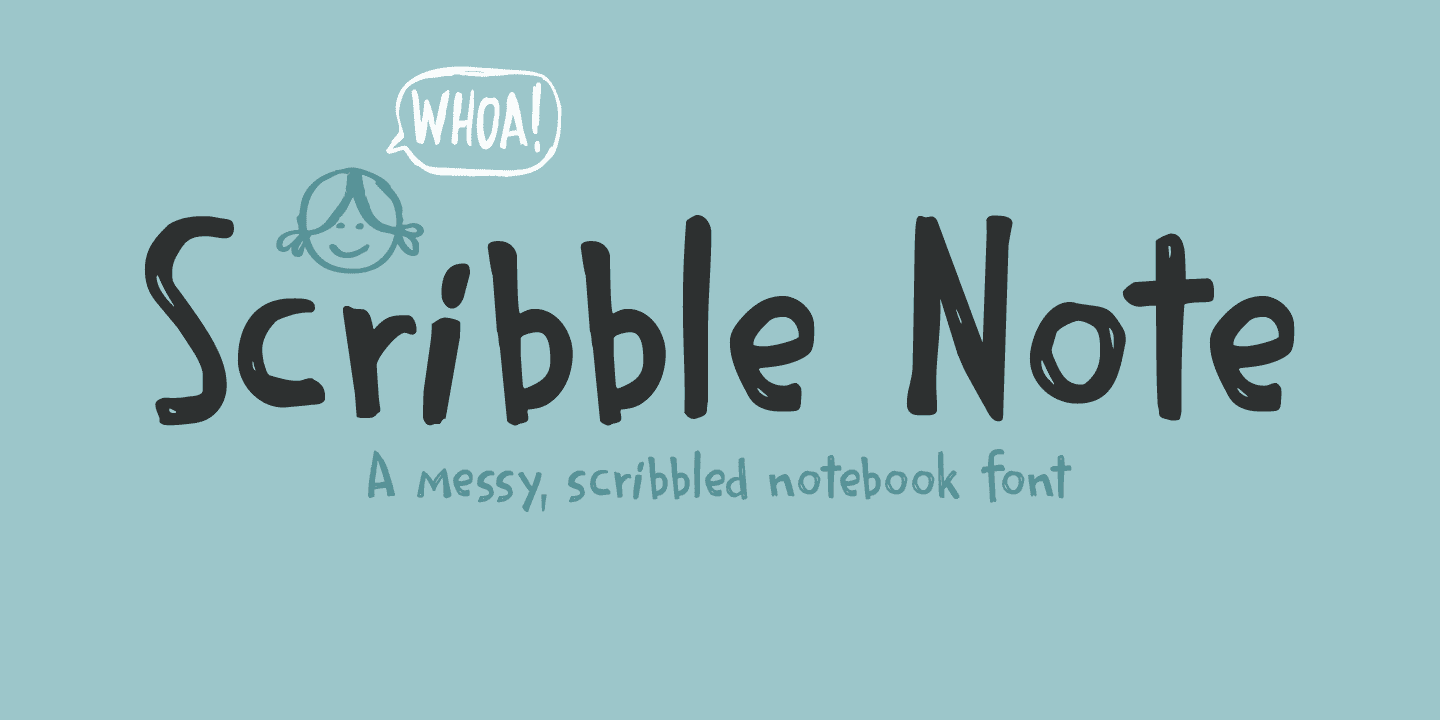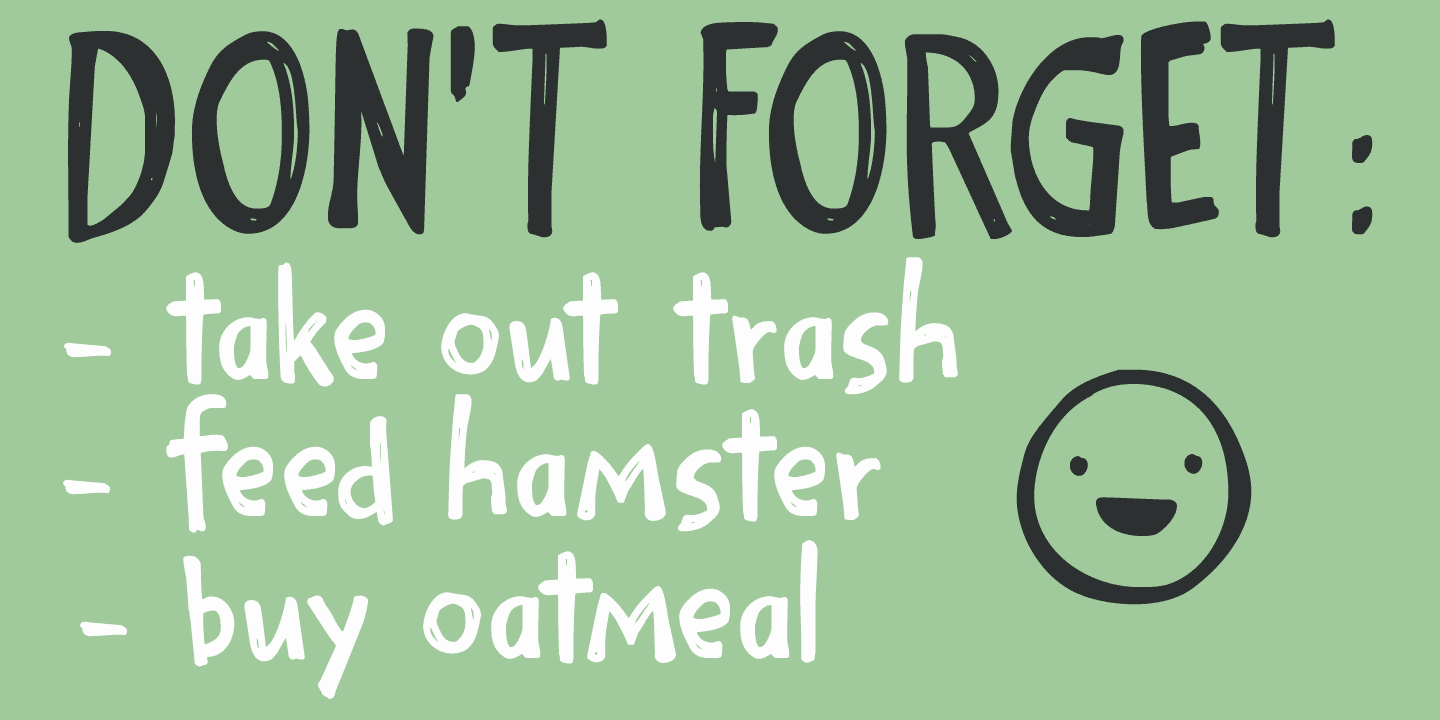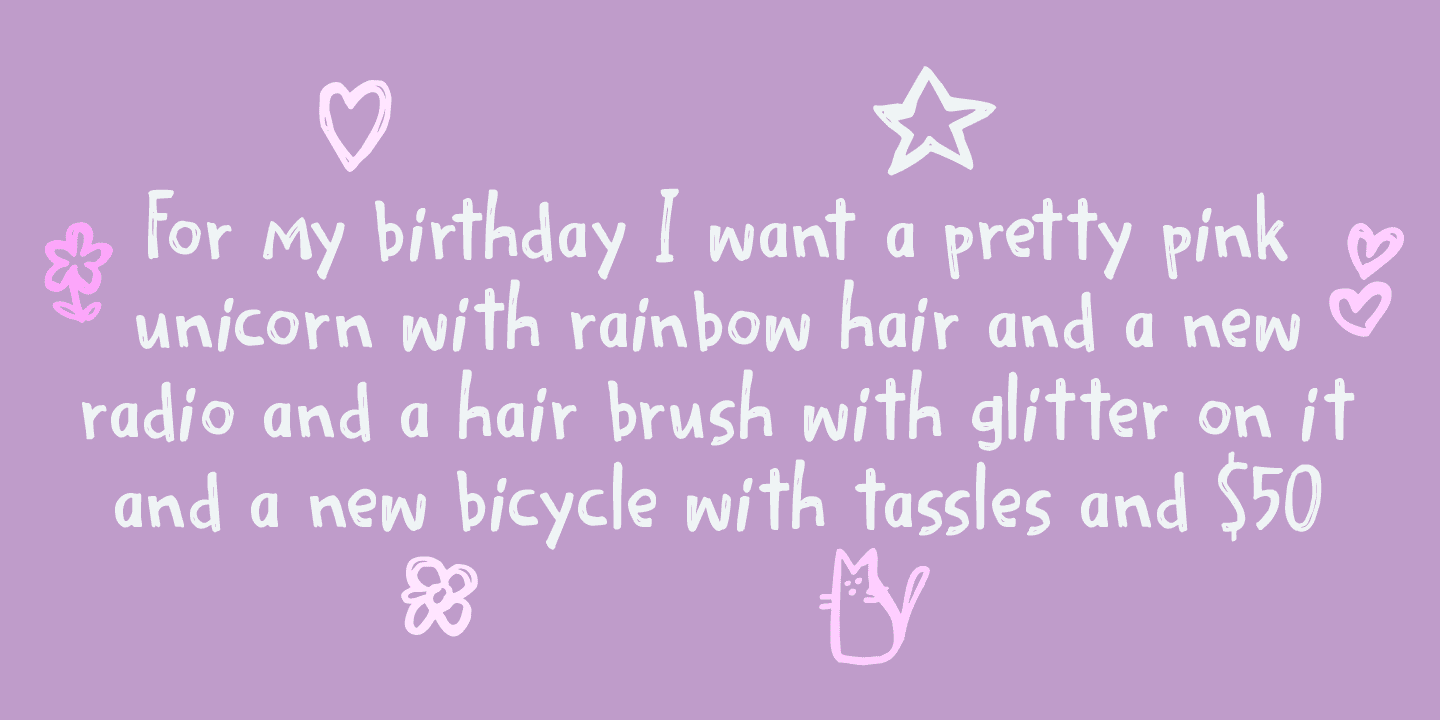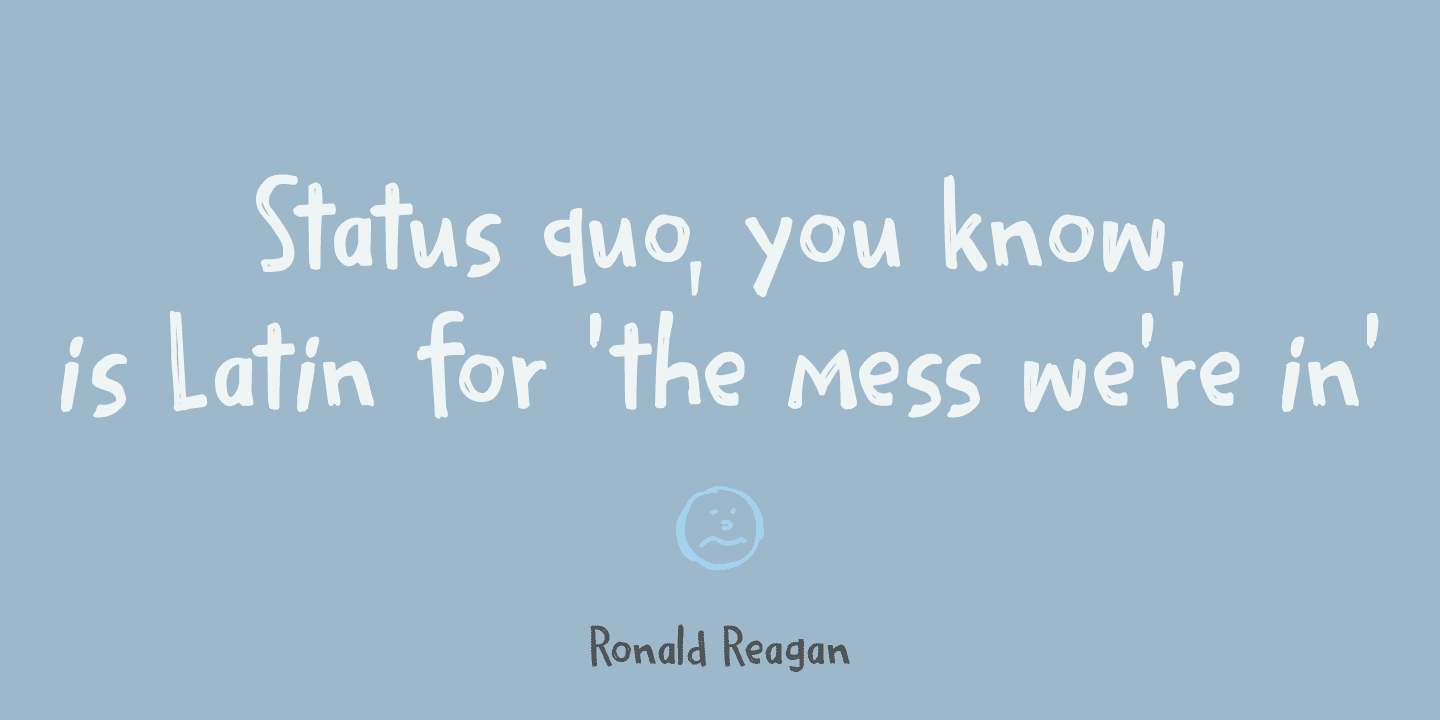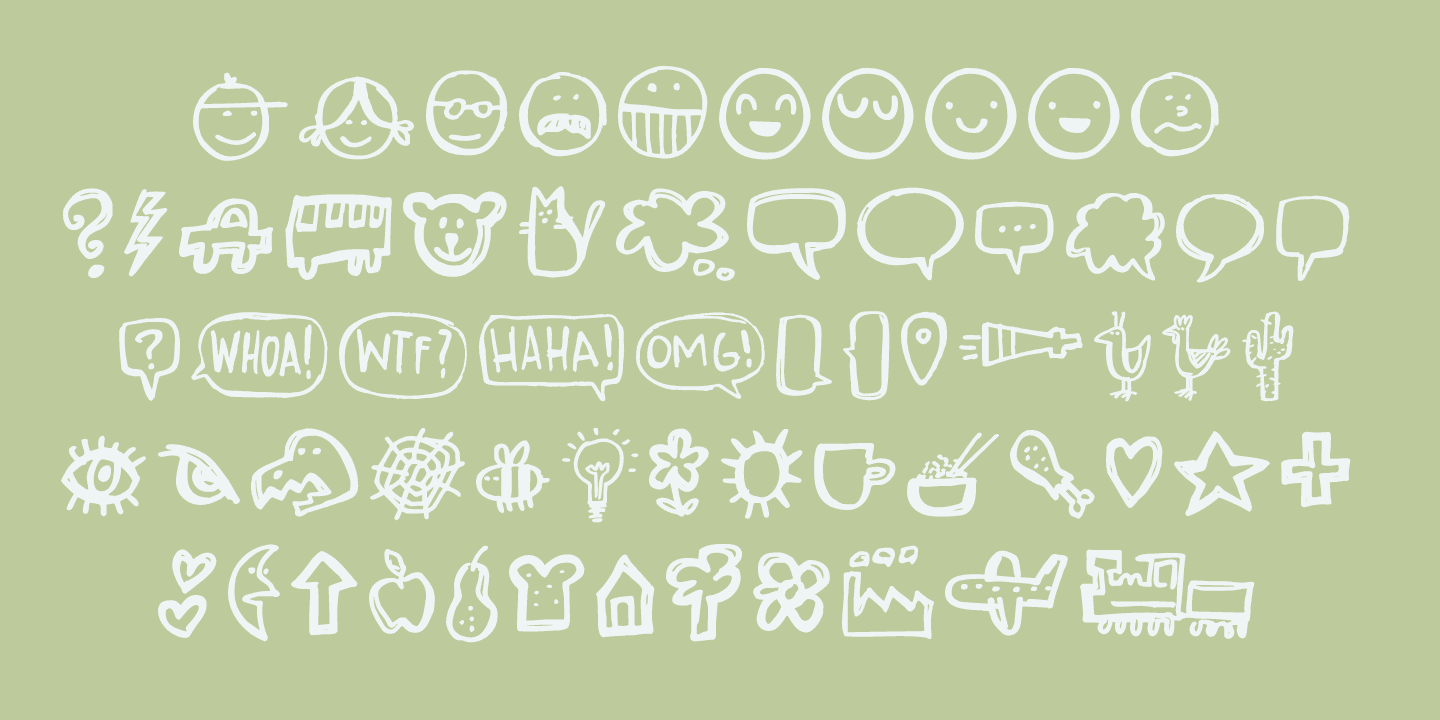
Scribble Note Family (3 fonts)
I just finished the bathroom and toilet upstairs, so I could actually finish a new font! Scribble Note is an ode to all those messy notes I wrote.
Comes with a cool Doodle pack as well!